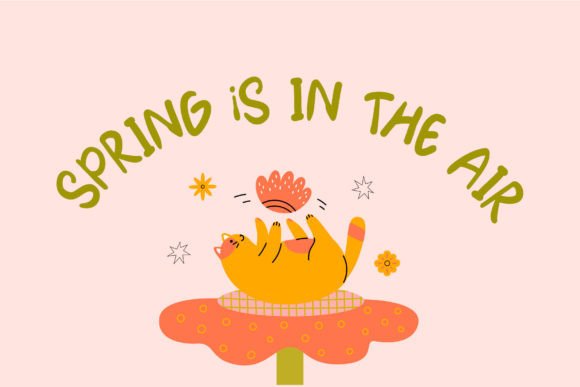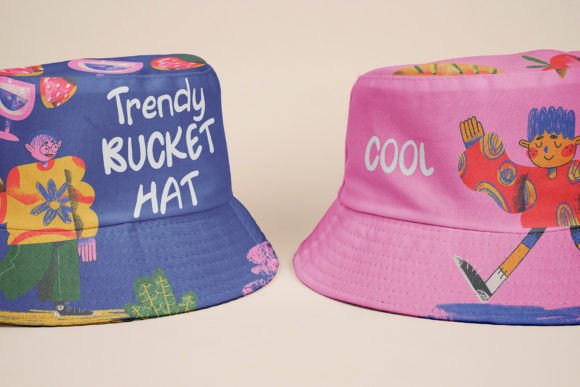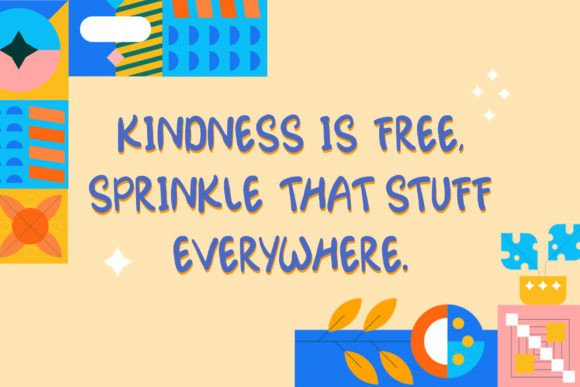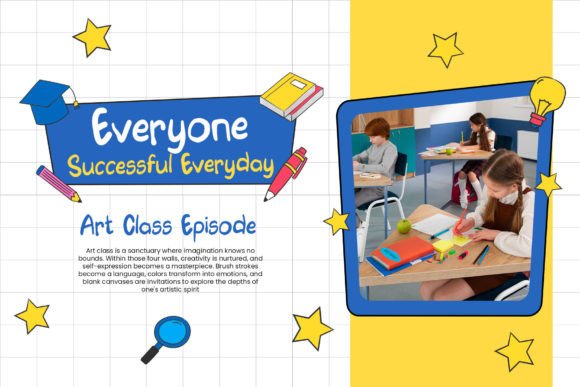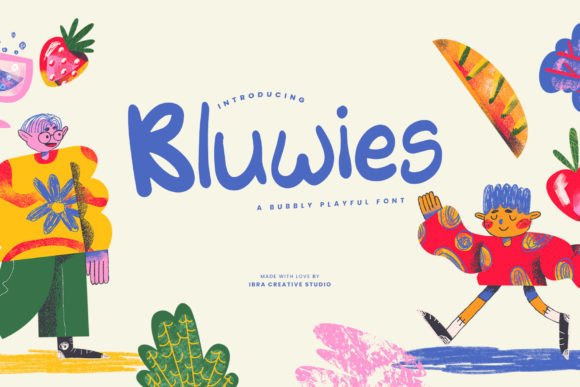
Introducing Bluwies Font: The Ultimate Choice for Whimsical Designs
Are you tired of using the same old fonts for your design projects? Look no further than Bluwies Font, a delightfully whimsical and playful font that exudes a sense of cheerfulness and charm. Its curvaceous letterforms dance and twirl with a sense of carefree abandon, capturing the essence of childlike joy and lightheartedness.
The Characteristics of Bluwies Font
The characters in Bluwies Font seem to come alive with their playful, bouncy shapes and rounded edges. This font is perfect for designers and crafters who want to add a touch of fun and spontaneity to their projects. Whether you’re working on a children’s book, a greeting card, or a website, Bluwies Font is sure to bring a smile to your audience’s faces.
What Makes Bluwies Font So Special?
So, what sets Bluwies Font apart from other fonts? Here are just a few reasons why designers and crafters are falling in love with this delightful font:
- Unique and Playful Design: Bluwies Font features a one-of-a-kind design that’s sure to grab attention. Its playful, curvaceous letterforms are perfect for projects that demand a sense of fun and spontaneity.
- Childlike Joy and Lightheartedness: This font captures the essence of childlike joy and lightheartedness, making it perfect for projects that aim to bring a smile to people’s faces.
- Versatility: Bluwies Font is versatile and can be used for a wide range of projects, from children’s books and greeting cards to websites and social media graphics.
- Ease of Use: This font is easy to read and works well in both digital and print formats.
How to Use Bluwies Font in Your Designs
Bluwies Font is easy to use and can be incorporated into your designs in a variety of ways. Here are a few ideas to get you started:
- Pair it with Other Fonts: Try pairing Bluwies Font with other fonts to create a unique and eye-catching design.
- Use it for Headings and Titles: Bluwies Font is perfect for headings and titles, adding a touch of whimsy and fun to your designs.
- Add it to Your Website or Blog: Use Bluwies Font on your website or blog to add a playful touch and make your content more engaging.
Tips and Tricks for Getting the Most Out of Bluwies Font
Here are a few tips and tricks for getting the most out of Bluwies Font:
- Experiment with Different Sizes and Colors: Try experimenting with different sizes and colors to find the perfect combination for your design.
- Use it for Kids’ Projects: Bluwies Font is perfect for kids’ projects, such as children’s books, activity sheets, and educational materials.
- Combine it with Illustrations: Combine Bluwies Font with illustrations or graphics to create a fun and engaging design.
In conclusion, Bluwies Font is a delightful and playful font that’s perfect for designers and crafters who want to add a touch of whimsy and fun to their projects. Its unique and playful design, childlike joy and lightheartedness, versatility, and ease of use make it an ideal choice for a wide range of projects. So why not give Bluwies Font a try and see how it can bring a smile to your audience’s faces?